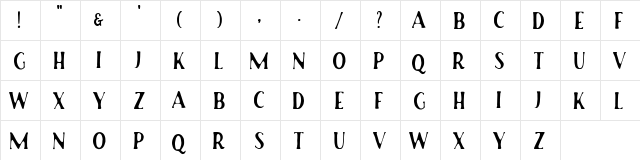
Rusted Orlando Serif Demo Regular
| Foundry | Runsell Studio |
| Designer | Saeful Maarif |
Design Context for Rusted Orlando Serif Demo Typeface
Rusted Orlando Serif Demo carries the refined structure of traditional serif typography, with bracketed terminals and considered proportions that communicate credibility and craft.